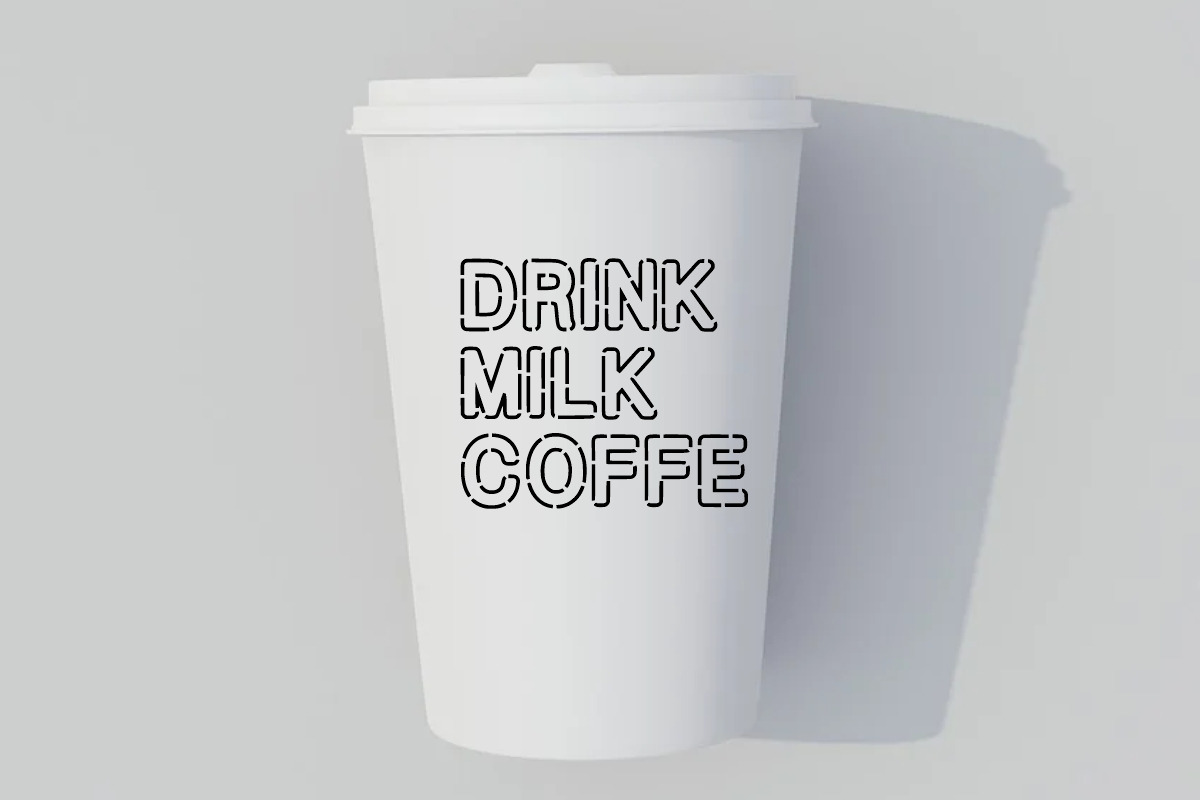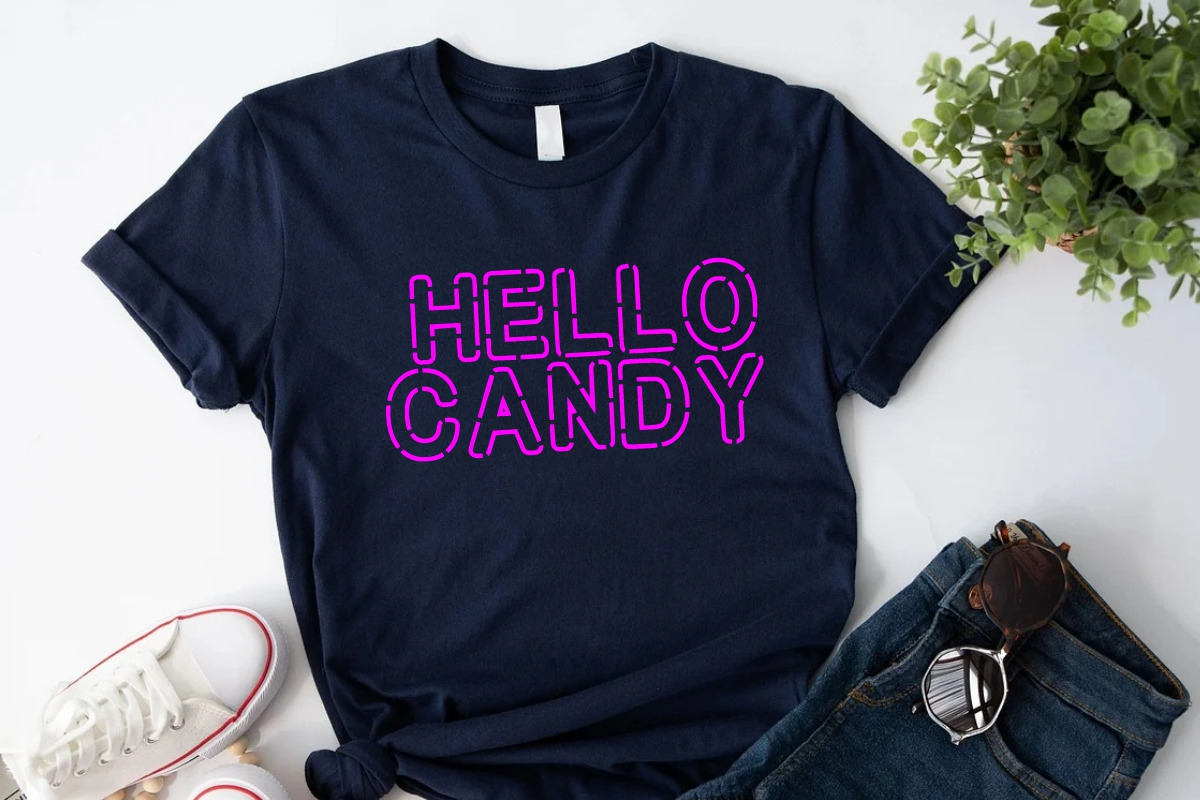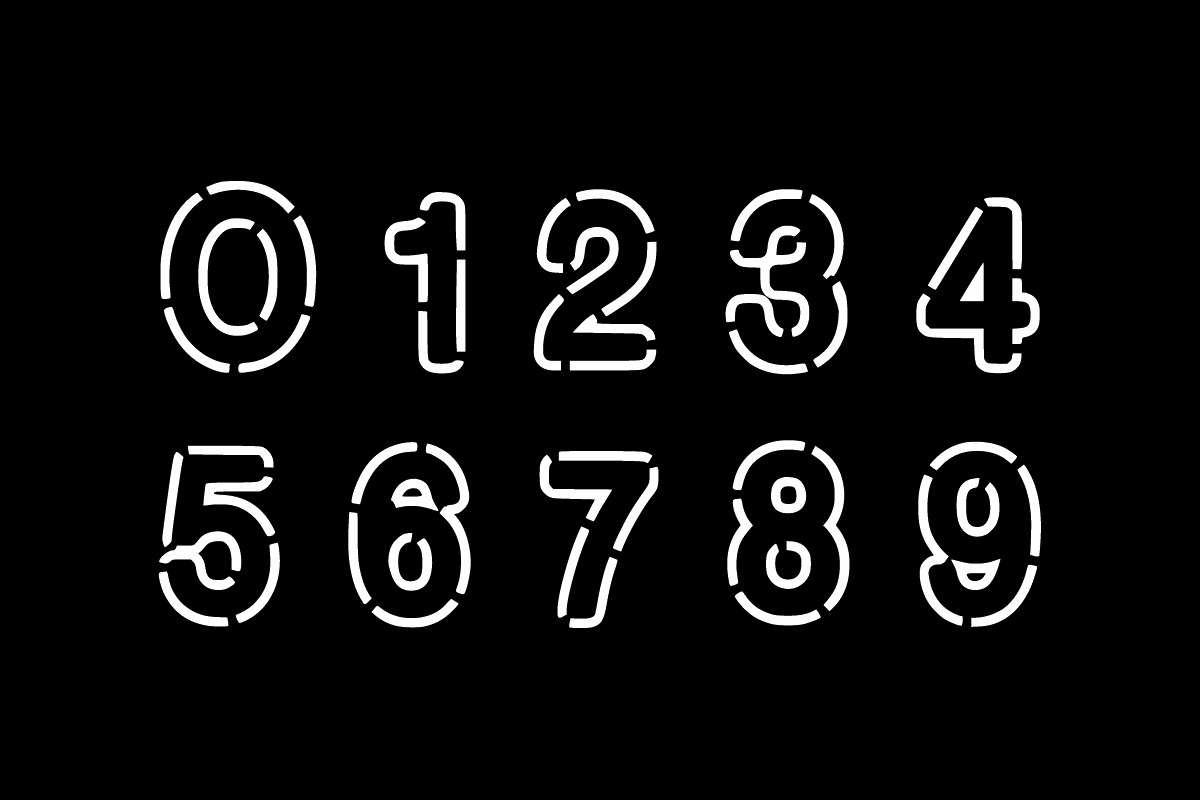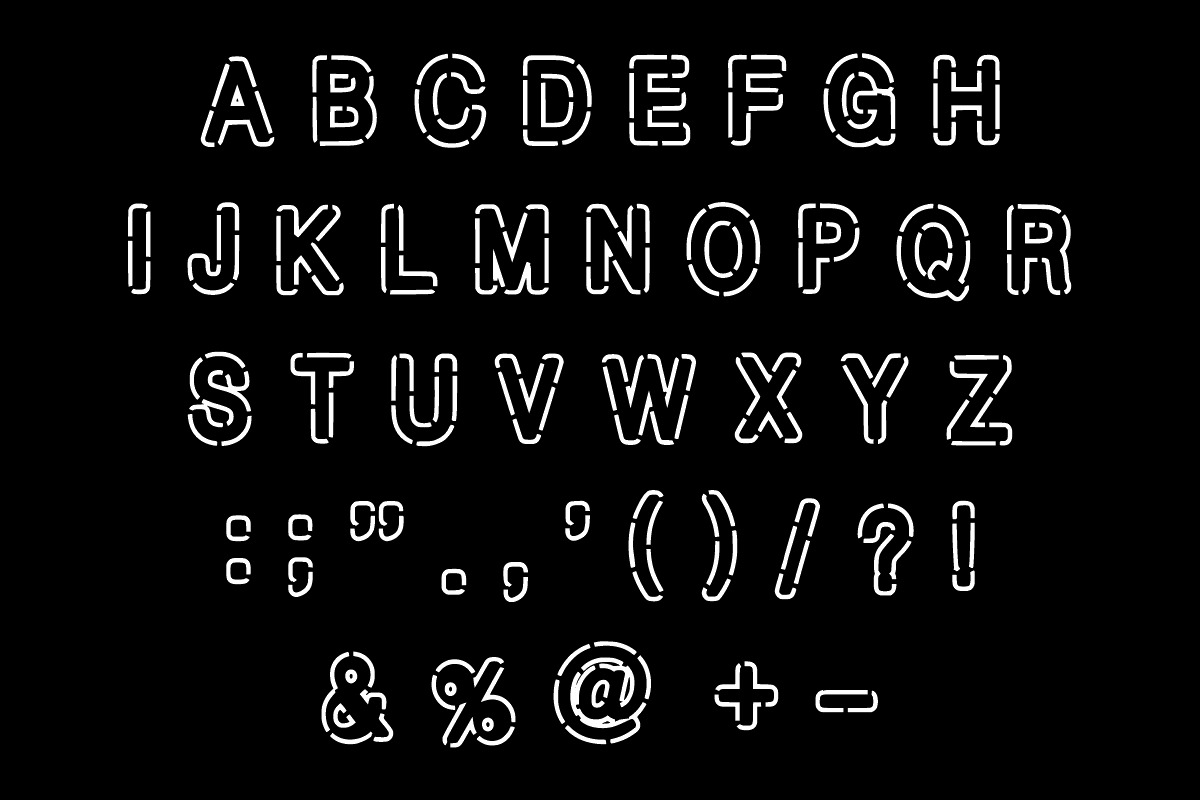
Candy Blondy
Candy Blondy is an outline adaptable display font. It is easy to read and conveys impeccable friendliness. Whether you’re using it for crafts, digital design, presentations, or making greeting cards, this font has the potential to become your favorite go-to font.